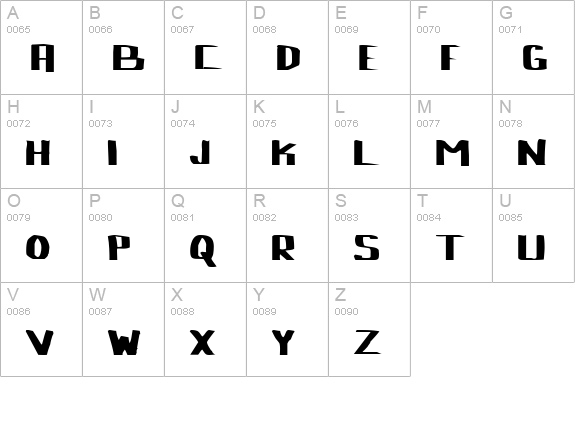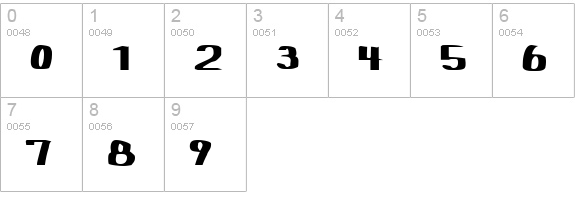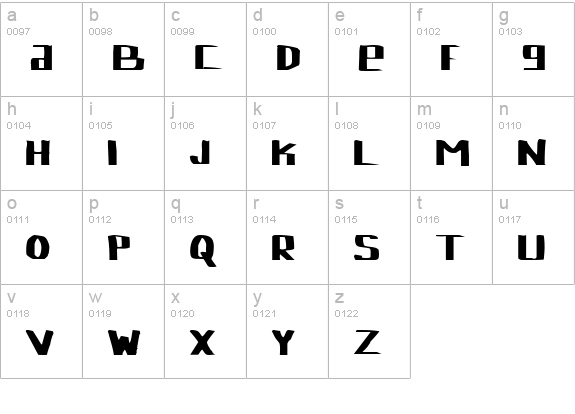
Lebowski Font Details
Introducing Lebowski Font, a captivating and versatile typeface that effortlessly combines sophistication with a touch of retro charm. This font is perfect for adding a touch of personality and style to your design projects. Lebowski Font features a unique blend of elegant curves and bold lines, giving it a distinctive and eye-catching appearance. Its sleek and modern design makes it suitable for a wide range of applications, from branding and logo design to packaging and advertising. With its extensive character set, Lebowski Font offers endless possibilities for creative expression. Whether you're designing a poster, creating a website, or crafting a social media post, this font will add a touch of elegance and professionalism to your work. The best part? Lebowski Font is absolutely free! That's right, you can download it freely at FontsMarket.com. Now you can elevate your designs without breaking the bank. Say goodbye to expensive fonts and hello to Lebowski Font - your new go-to typeface. So what are you waiting for? Download Lebowski Font today and start creating stunning designs that will leave a lasting impression. Unleash your creativity and let this font be your ultimate design companion. Get ready to turn heads and make a statement with Lebowski Font - the perfect blend of style and functionality.